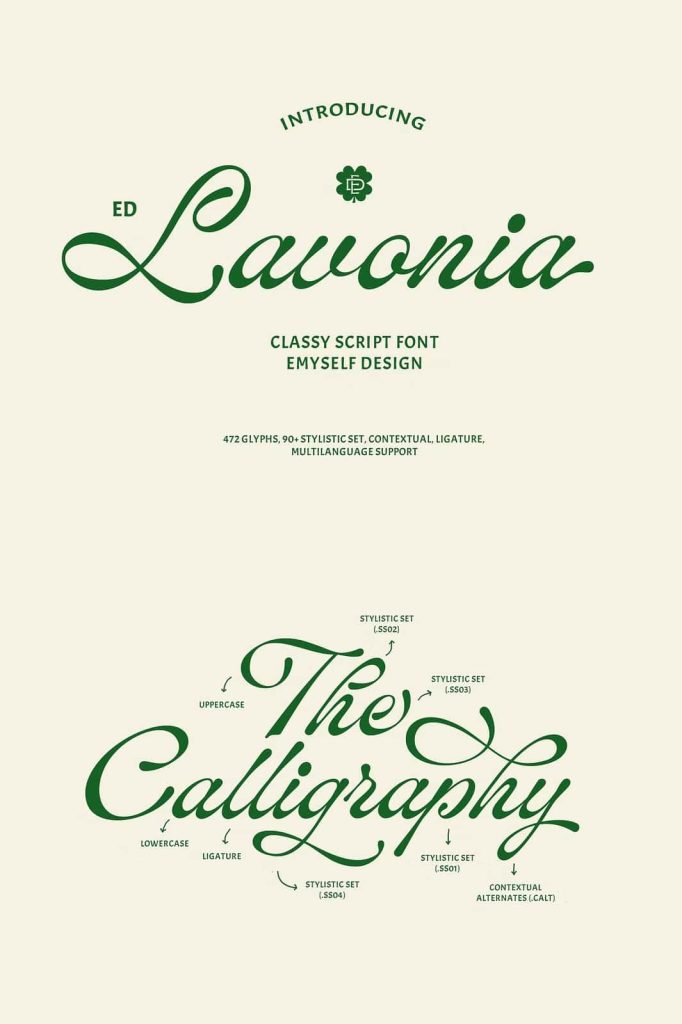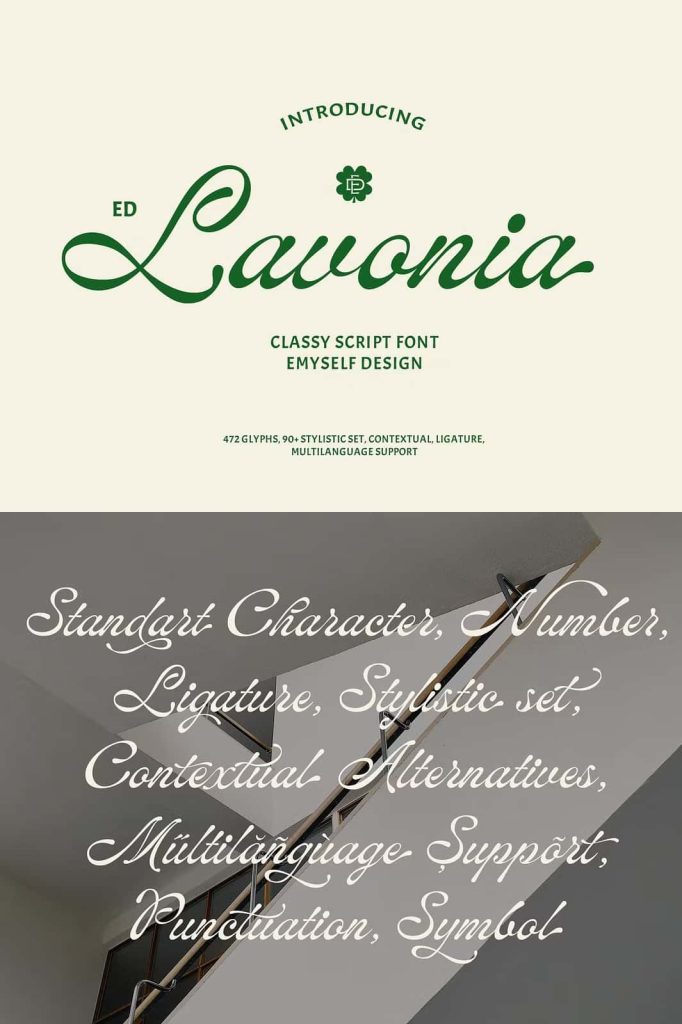
ED Lavonia – Classy ScriptleastedJuly 10, 2025Fonts Lavonia script is a modern classic style script font inspired by classic handwriting in book. Download